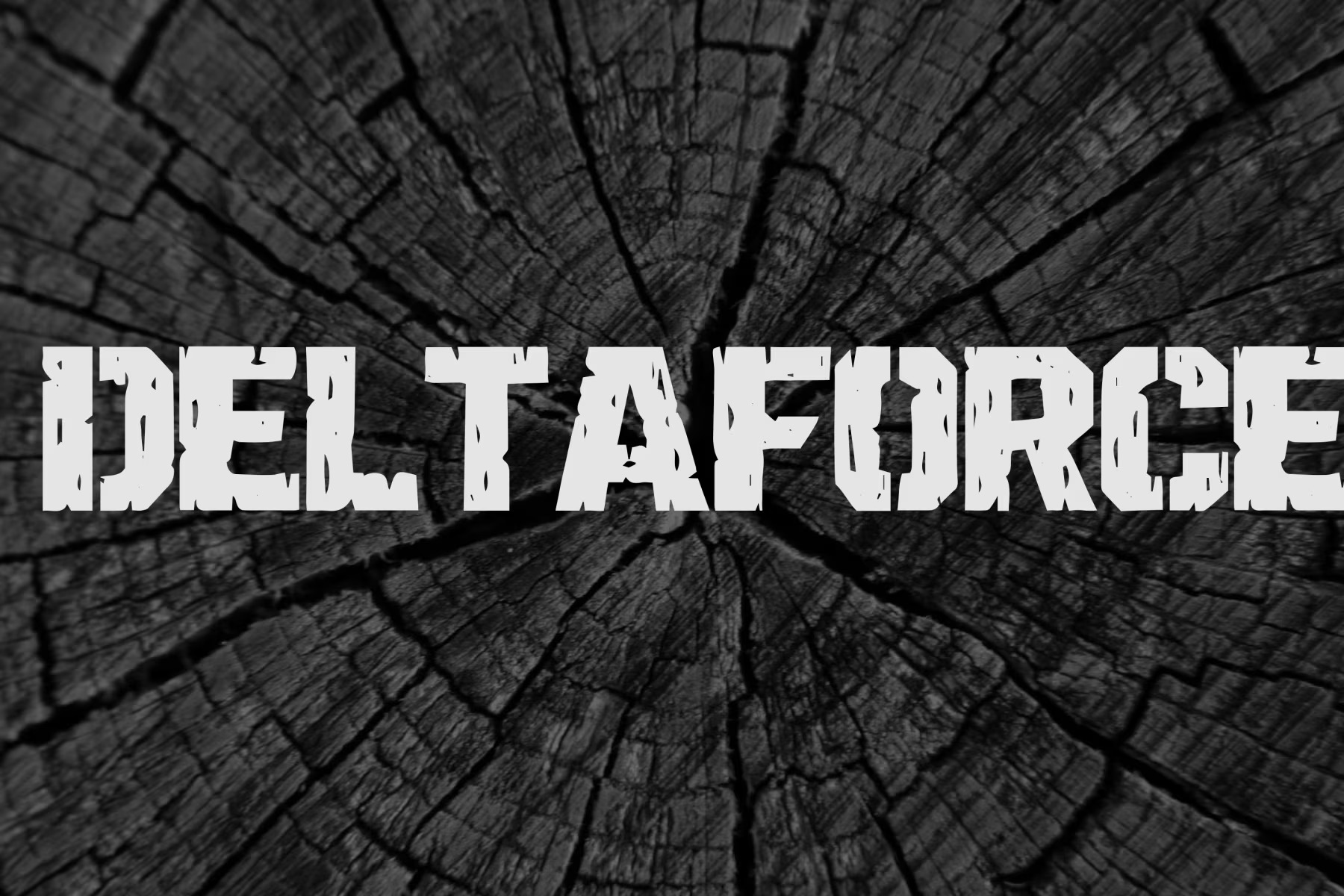
DeltaForce Font
DeltaForce Font is a premium-quality font developed to enhance your work with a polished, modern, and visually elevated look. DeltaForce is a bold display font created by BlackFridayFont, featuring a strong, rugged stencil-inspired style that works well for impactful headlines, posters, and army-themed designs.